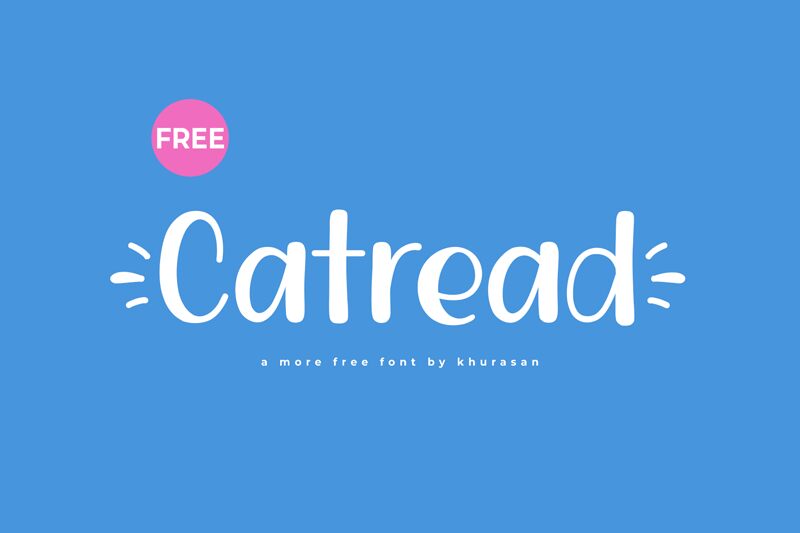
Catread
Catread, crafted by the designer Khurasan, is a display font that stands out with its playful yet sophisticated style. The letters dance with a whimsical elegance, boasting gentle curves and flowing lines that suggest a casual charm perfect for creative projects. Its aesthetic appeal lies in the subtle balance between friendliness and flair, making it an ideal choice for designs that require a touch of personality without sacrificing refinement.
The font's versatility shines in various design contexts—it's well-suited for branding materials, editorial headlines, and stylish advertising campaigns. Whether it graces the cover of a trendy magazine or adds character to a logo, Catread is poised to capture attention and leave an impression of modern sophistication mingled with delightful approachability.